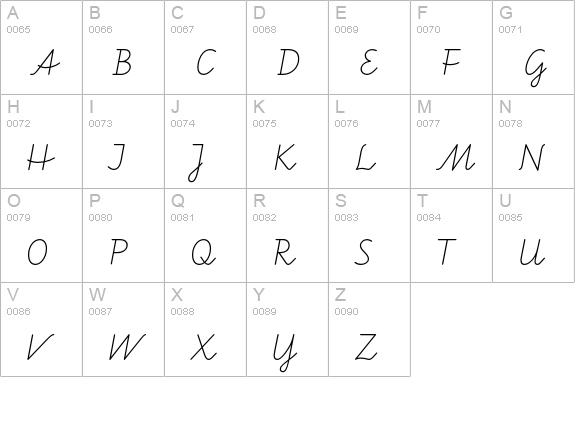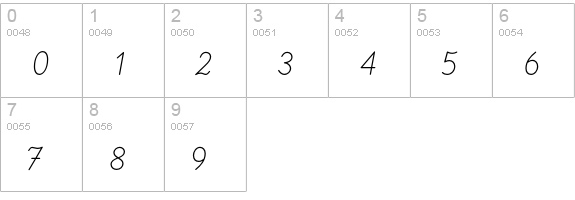
SchulschriftA Font Details
SchulschriftA is a beautifully designed font that captures the essence of classic handwriting. With its elegant curves and delicate strokes, this font adds a touch of sophistication to any project. Whether you're creating invitations, posters, or branding materials, SchulschriftA will elevate your design to a whole new level. What makes SchulschriftA even more remarkable is that it is free. Yes, you read that right! This stunning font is freely available to download at FontsMarket.com. Now you can access this amazing font without breaking the bank. Bring your creative visions to life without worrying about expensive licensing fees. SchulschriftA is perfect for a wide range of applications. Its clean and legible design makes it ideal for educational materials, such as worksheets and textbooks. It also adds a unique and artistic touch to packaging, logos, and signage. With its versatility, you can use SchulschriftA across various industries and projects. The attention to detail in SchulschriftA is evident in every letterform. The smooth lines and graceful curves create a harmonious balance, making it a joy to read and work with. Whether you're a seasoned designer or just starting out, this font will make your work stand out from the crowd. Downloading SchulschriftA from FontsMarket.com is quick and easy. Simply visit the website, locate the font, and hit the download button. Within minutes, you'll have this exquisite font at your fingertips, ready to bring your creative visions to life. Don't miss out on this incredible opportunity to enhance your designs with SchulschriftA. Download it for free today at FontsMarket.com and experience the beauty and versatility of this truly remarkable font.